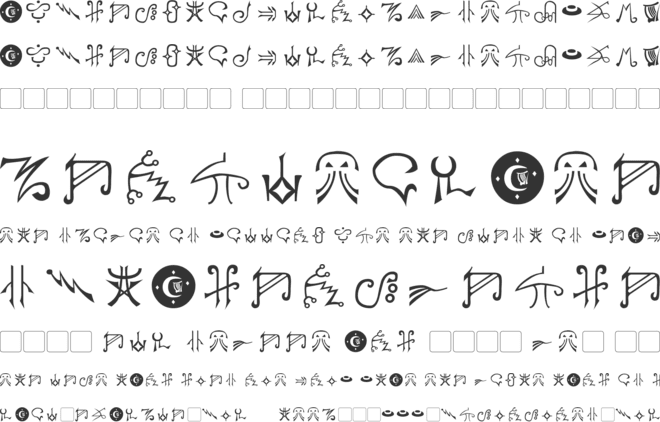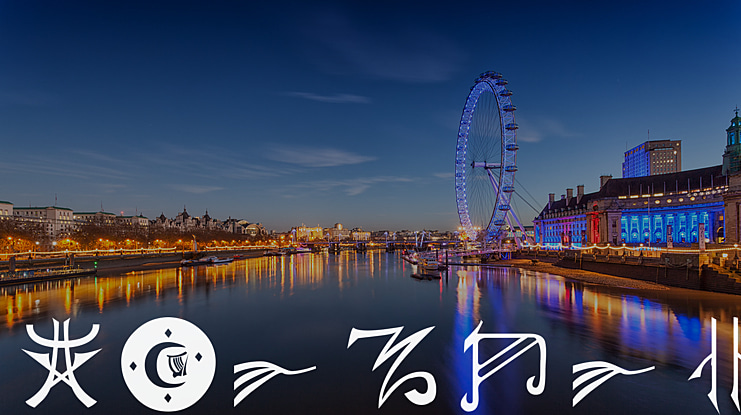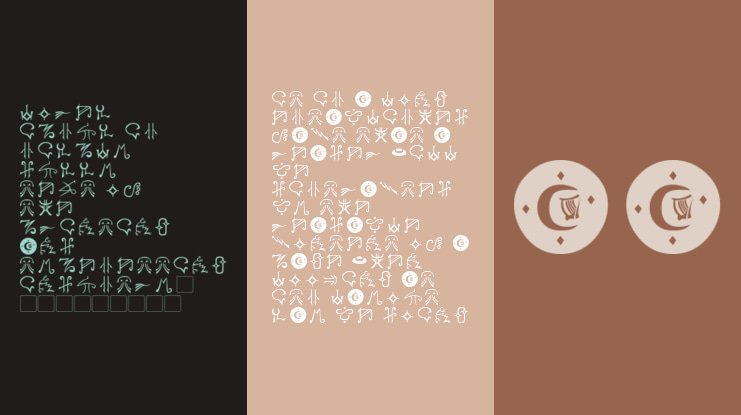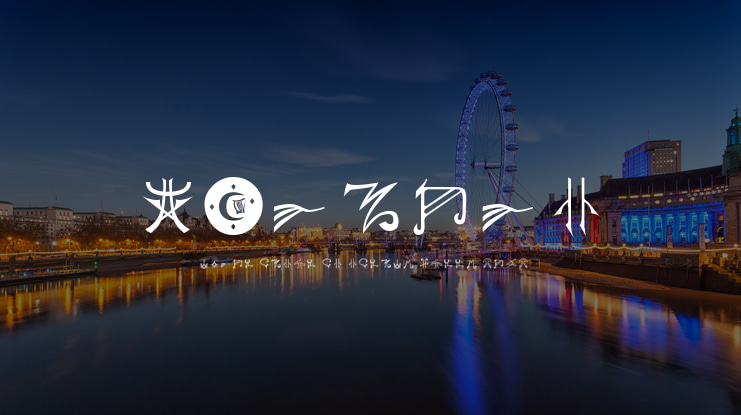
Harpers Font
Harpers is based on the signage fount in TSR Inc’s, Forgotten Realms box set for dungeons and Dragons second edition. Not a script per se, these runes are actually markers designed to help guide knowledgable Harpers through rough and dangerous terrain. Includes 26 runes based on those found in the box set.